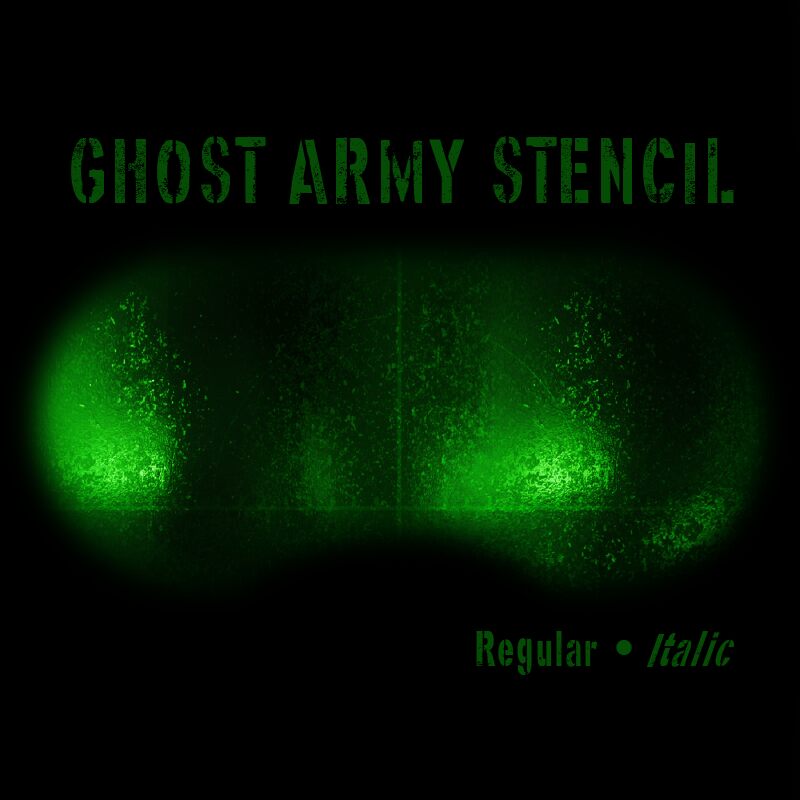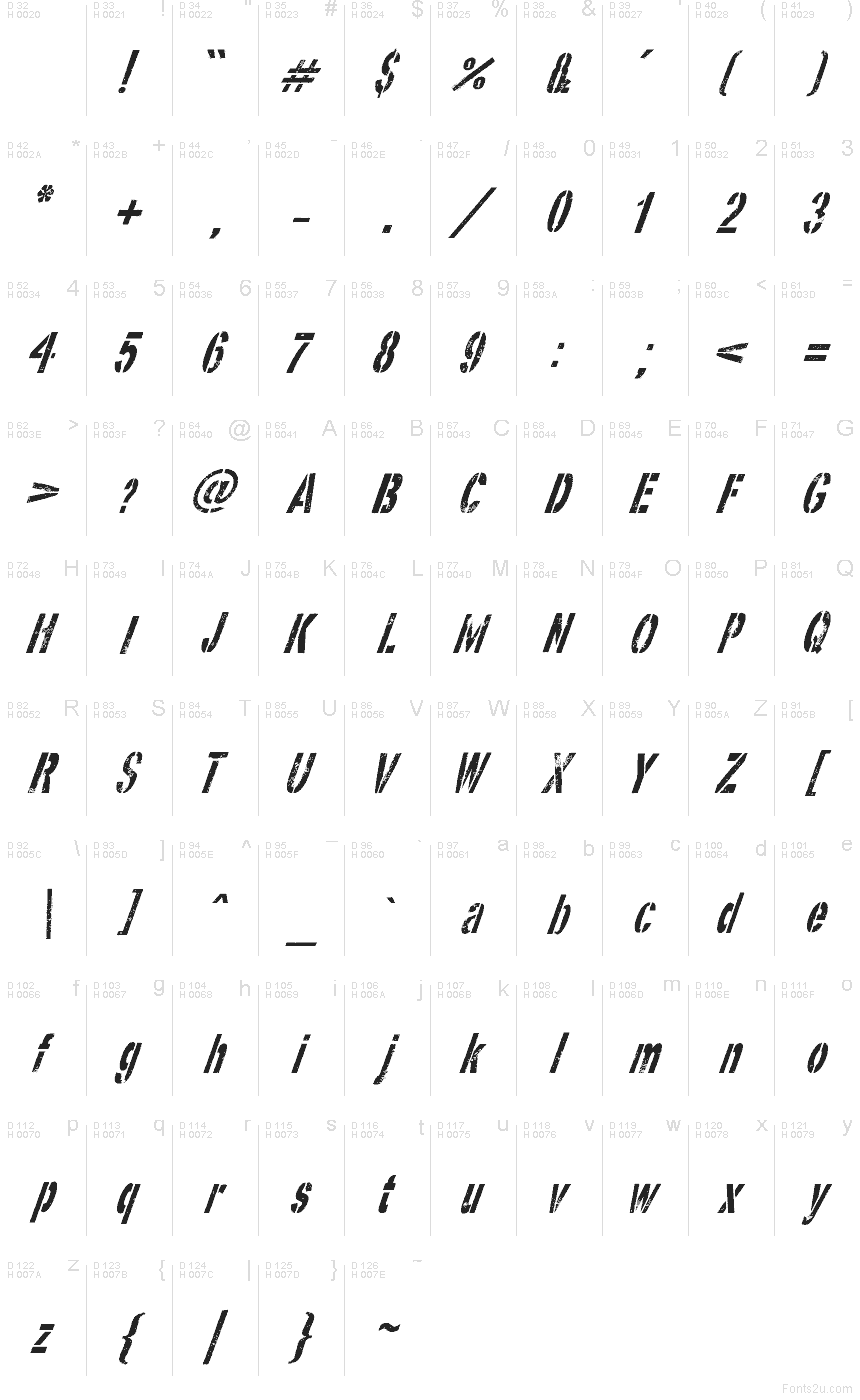
Ghost Army Stencil Italic
Ghost Army Stencil Italic font by Galdino Otten Fonts is a free eroded military display font with slanted stencil forms and rough, weathered cuts running through each shape. The letters feel cut out rather than drawn, with sharp gaps and chipped edges that give the design a worn, tactical character.
Ghost Army Stencil Italic works well for military posters, game titles, album covers, distressed logos, and apparel graphics that need a stamped, gritty finish. This free font also fits warning labels, bunker-style signage, and headline accents where the broken stencil structure can carry the whole message without extra decoration.